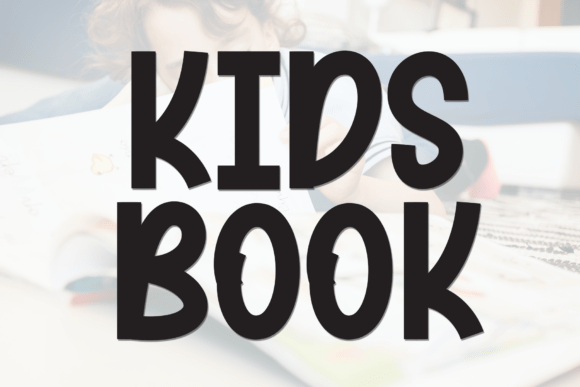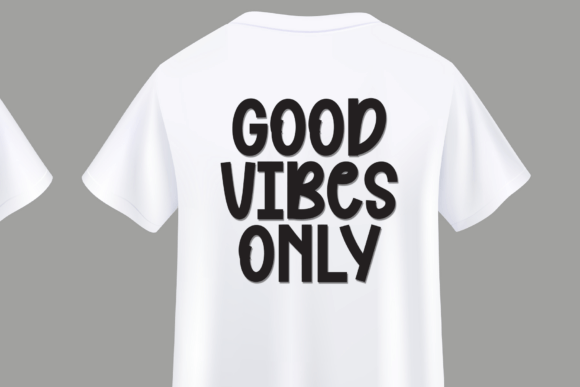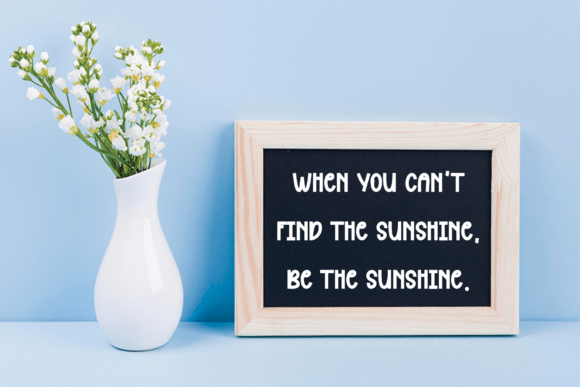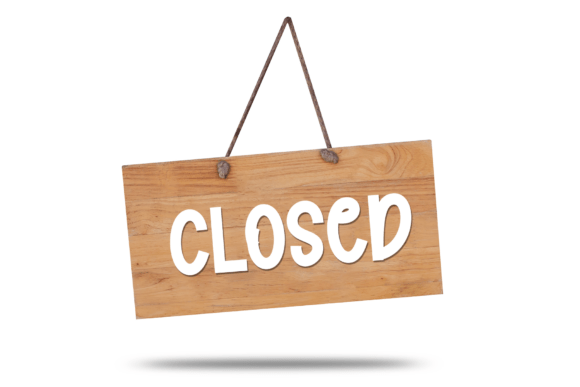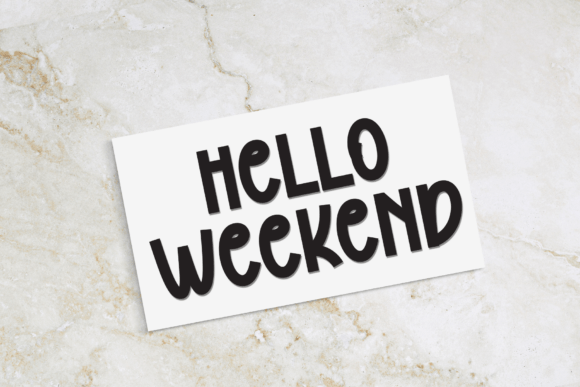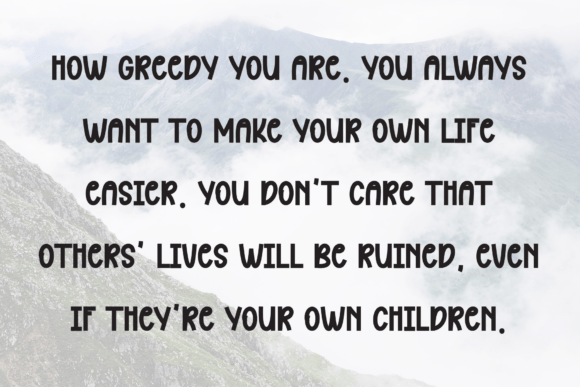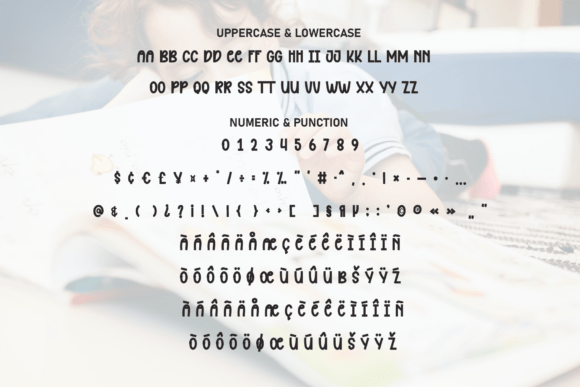
Unleashing the Magic of Children’s Literature
Have you ever sat with a child, watching them discover the world of reading for the first time? The way their eyes light up as they turn the pages of a colorful children’s book, the excitement in their voice as they read about their favorite characters – it’s a truly magical experience. As designers, we have the power to create visual stories that capture this sense of wonder and imagination.
That’s where the Kids Book Font comes in – a perfect blend of simplicity and playfulness that brings a smile to our faces. This friendly font is designed to add a touch of warmth and approachability to any design project, making it an ideal choice for branding, packaging, and digital content. With its clean lines and balanced letterforms, the Kids Book Font delivers clarity and charm in equal measure, making it a valuable tool for designers looking to create engaging and memorable designs.
Kids Book Font Key Features
- Character Set: The font includes a comprehensive set of characters, including uppercase and lowercase letters, numbers, punctuation marks, and special characters, as well as a range of international characters.
- Unique Characteristics: The font features a playful, child-friendly design with rounded edges and a friendly feel, making it perfect for use in children’s books, educational materials, and other applications where a fun and approachable tone is desired.
- Font Style: Kids Book Font is available in a single font style, with a range of weights and styles available for use in different contexts.
Designer Review: Kids Book Font
Overall, I found the Kids Book Font to be a visually appealing and engaging choice for children’s literature. ✨ The font’s playful and whimsical nature effectively captures the attention of young readers, making it an excellent option for picture books and early readers.
The font’s flexibility is also a major advantage. ✨ It comes in a variety of weights and styles, allowing designers to create visually appealing headings and text that will hold the reader’s attention. Additionally, the font is highly legible, even at smaller font sizes, making it suitable for longer texts.
However, I did encounter a few limitations while using the Kids Book Font. ⚠️ One major issue is the font’s lack of consistency across different devices and platforms. In some cases, the font’s appearance may vary, which can lead to inconsistencies in the overall design.
Another limitation is the font’s limited language support. ⚠️ While it includes support for a range of languages, it may not be suitable for more complex texts or languages that require a high level of typographic precision.
In conclusion, the Kids Book Font is a solid choice for children’s literature, offering a playful and engaging design that is sure to captivate young readers. However, designers should be aware of the font’s limitations and consider these factors when making their design decisions.
Recommendations
- Use the font in combination with other design elements to create a visually appealing and engaging design.
- Consider using a font with more comprehensive language support for complex texts or languages.
Tips for Getting the Most Out of Kids Book Font
Use the Kids Book Font to create engaging and playful designs for children’s books, educational materials, and other kid-friendly content. Experiment with different font styles and combinations to add visual interest and personality to your designs.
Q: Does Kids Book Font support multilingual typesetting?
Kids Book Font includes support for Latin, Greek, and Cyrillic scripts, making it suitable for multilingual typesetting. However, please note that the font may not support all languages or character sets. If you require support for a specific language or script, please contact the font vendor for more information.